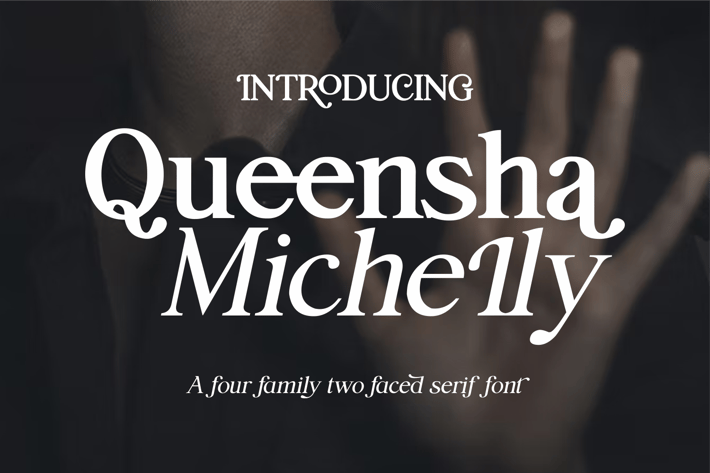
Queensha Michelly - Modern Serif Font Two Face
Introducing "Queensha Michelly" - a Serif font family that's "two-faced" with modern and vintage.
If you're using Vintage Retro : Access your OpenType features to access a large selection of alternative fonts and ligatures, pick the font you like from a wide variety of variations to get the vintage look you're looking for. Vary between a light and heavy vintage look based on the number of letters you change.
Due to its dual personality, Queensha Michelly is a very versatile font, covering a wide variety of projects, from bold magazine images, to wedding invitations, to branding, poster design, and more.